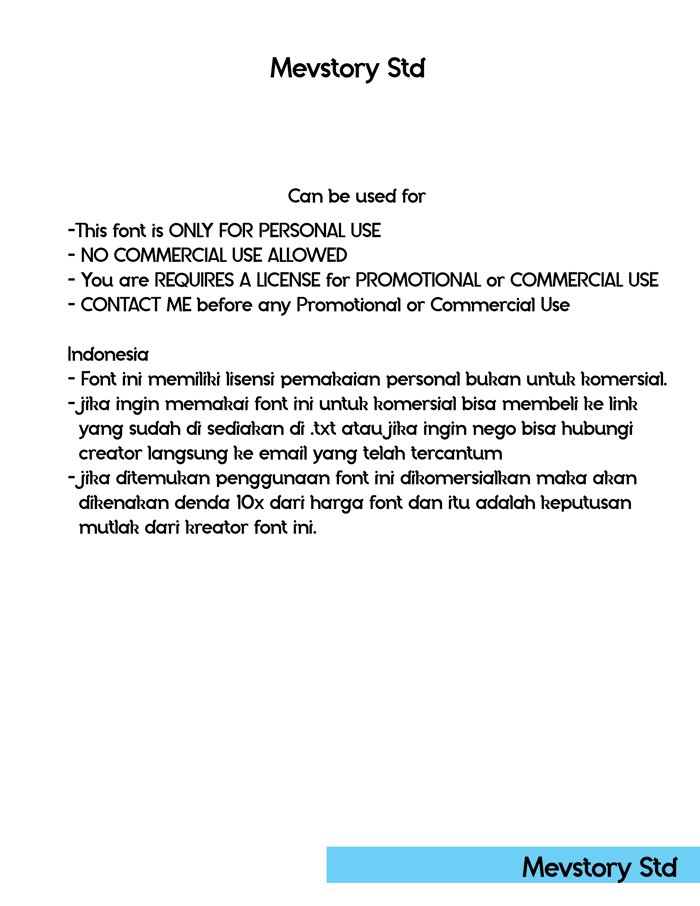
Pulchella Font
Pulchella , from Mevstory Studio, is a new free elegant sans serif font. This font is great for logos, business branding, invitations, stationery, product packaging and much more!